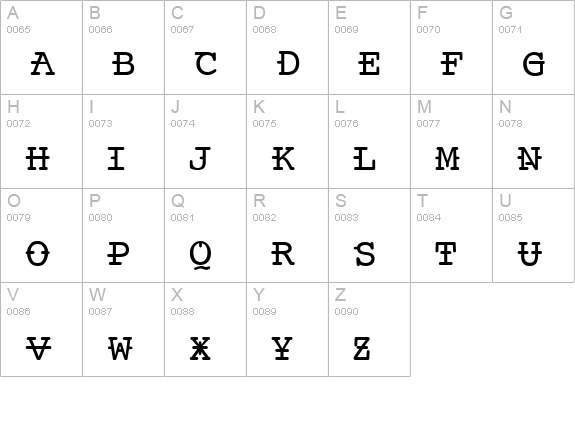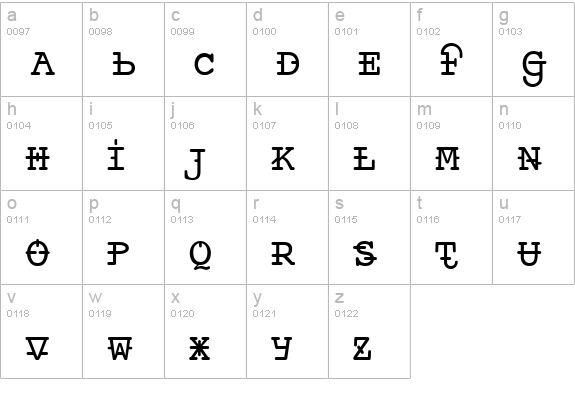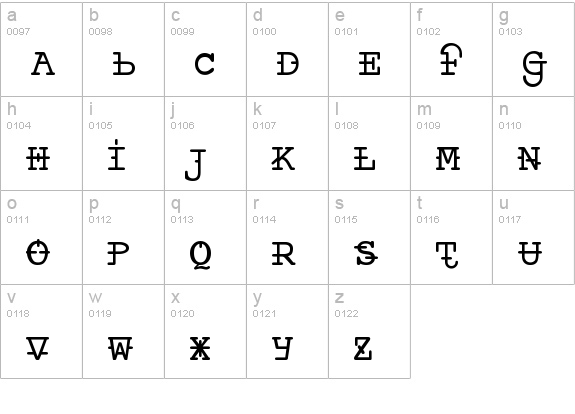
Ankora Font Details
Ankora font is a stunning typeface that exudes elegance and sophistication. Its sleek and modern design is perfect for a wide range of projects, from branding to editorial design. With its clean lines and balanced proportions, Ankora font adds a touch of class to any design. The best part? Ankora font is completely free to use! You can download this beautiful typeface at FontsMarket.com and start using it in your projects today. Whether you're designing a logo, creating a poster, or working on a website, Ankora font will elevate your design and make it stand out. Don't miss out on this amazing opportunity to enhance your work with the timeless beauty of Ankora font. Download it now and see the difference it makes in your designs!